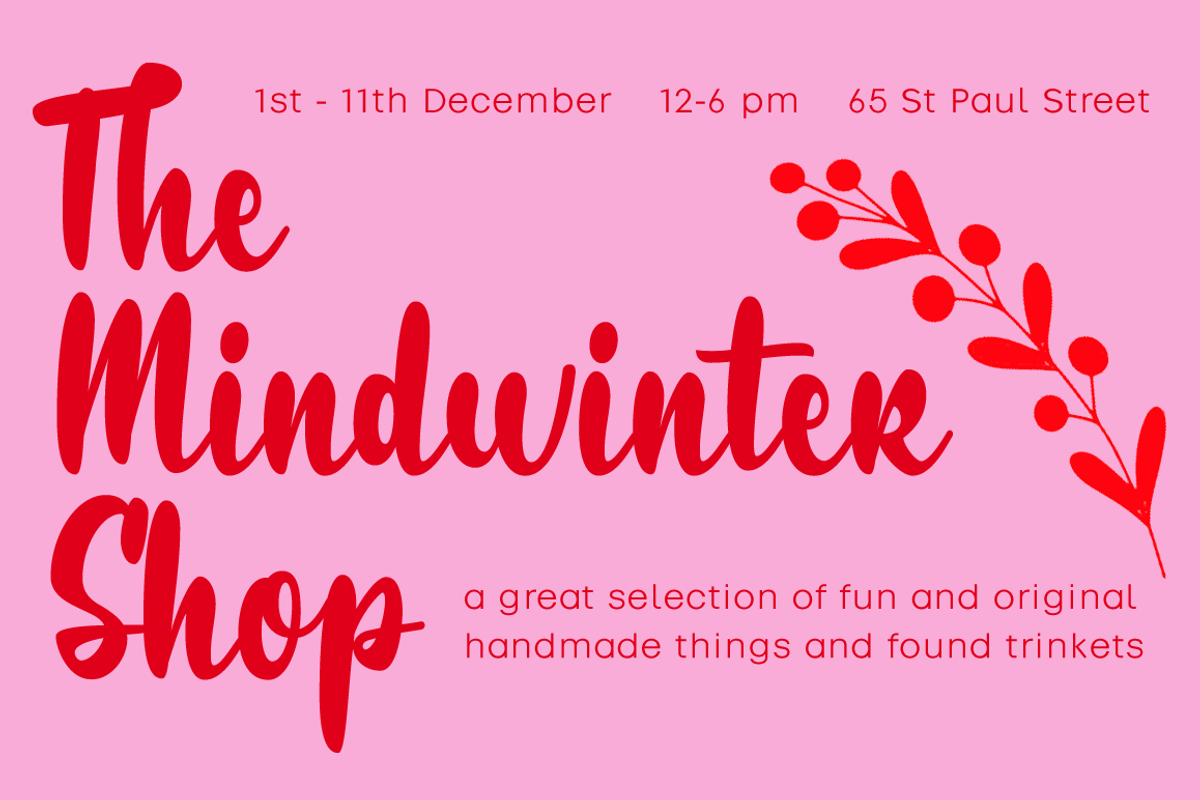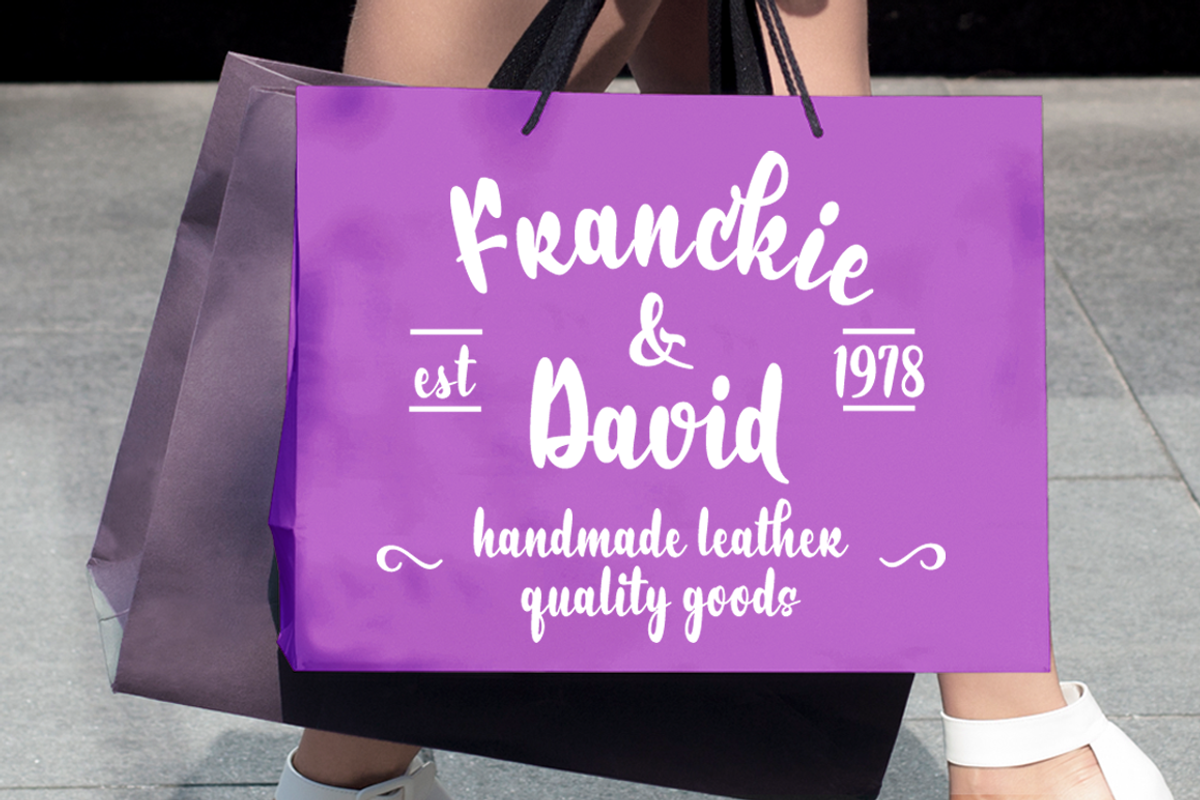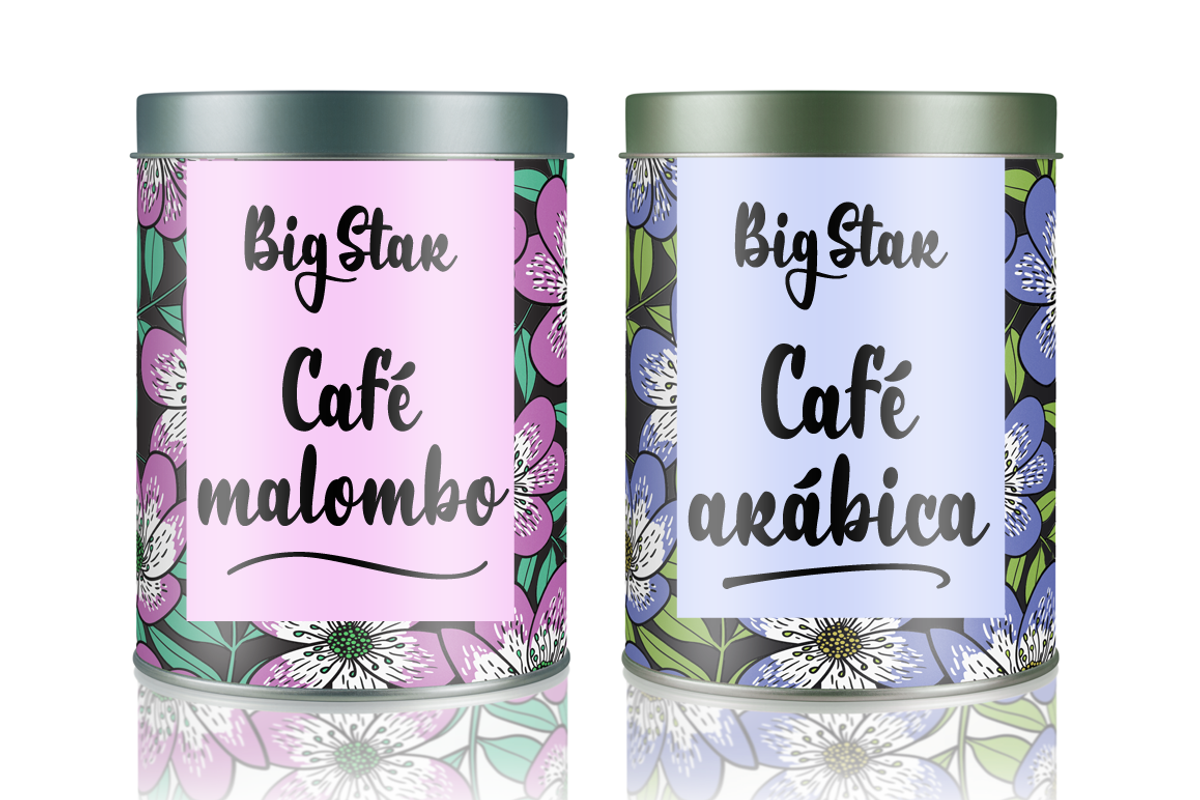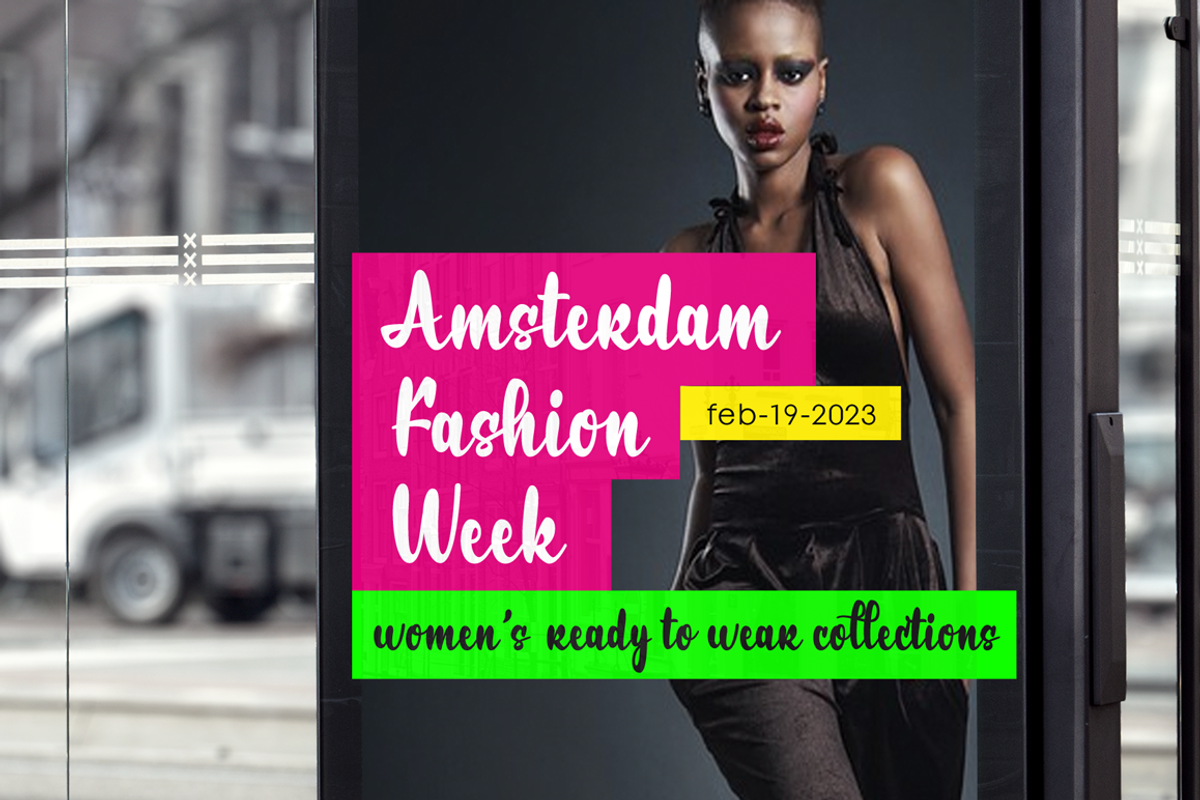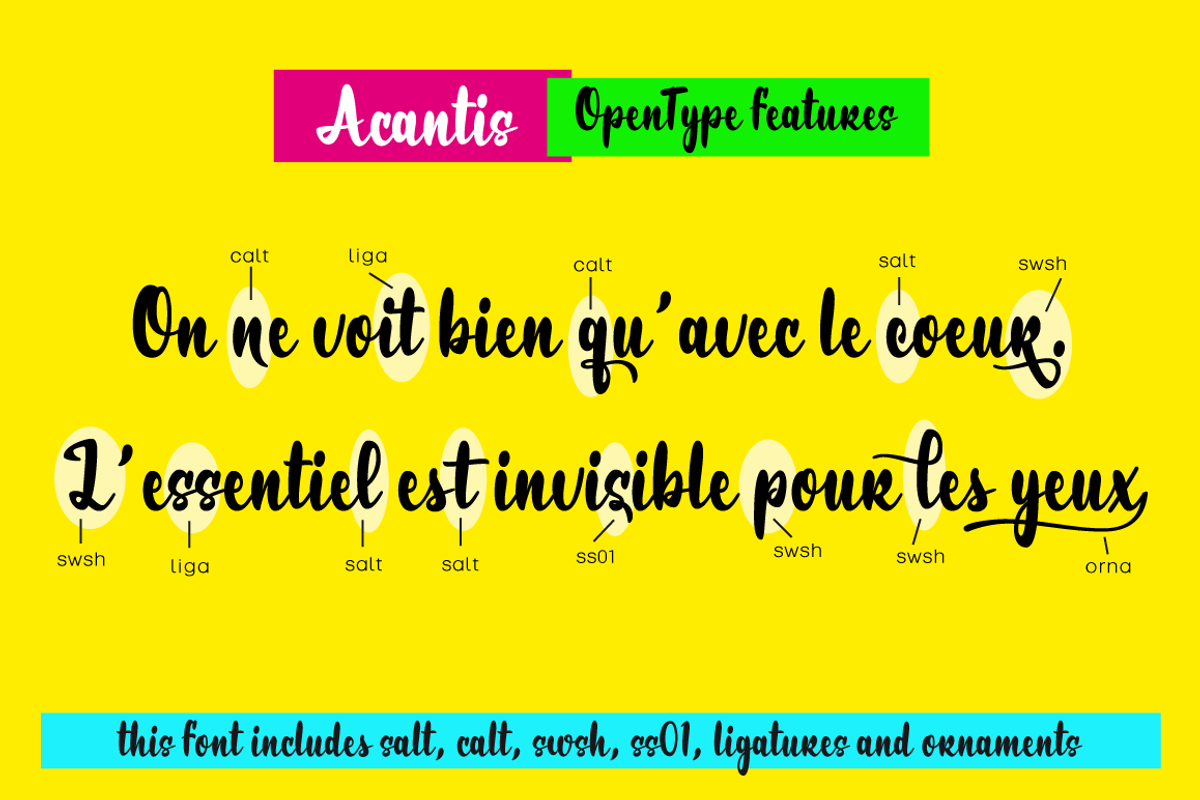
Acantis
Designer: Carine de Wandeleer
Publisher: Eurotypo
Acantis is a strong script font with a vintage look inspired by the lettering designs of the 1980s but updated for today's projects. Acantis is the perfect mix of elegance and informality. Open Type features include a full complement of international characters, standard and contextual alternatives, swashes, stylistic sets, standard and discretionary ligatures. All of this makes the text lively and animated, without the monotony of obviously repeating letterforms. Also, we've included some ornaments designed to support the font, some were specially designed to be combined with the letters for a "more calligraphic" effect (access them via the glyphs palette). Acantis can be the choice to create titles, logos and posters for branding and packaging purposes, invitations, greeting cards, magazine and book covers, children's supplies, fashion, and wherever you want!